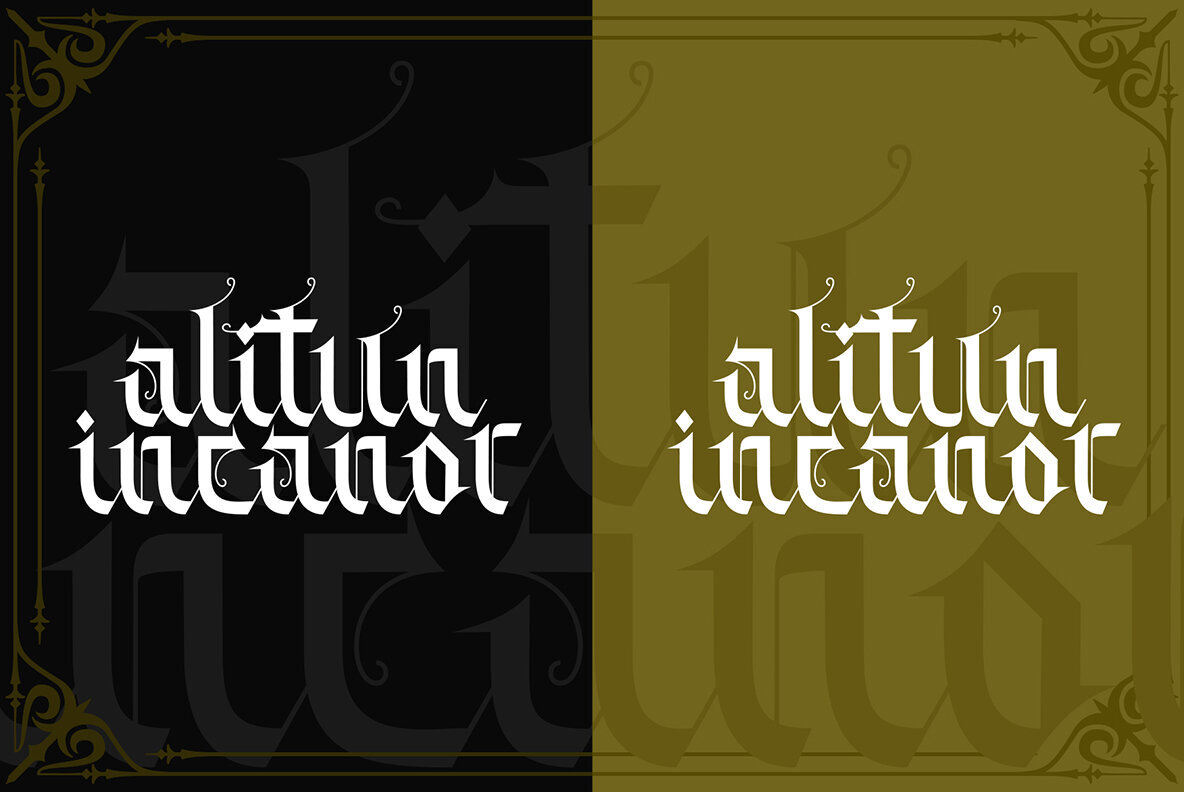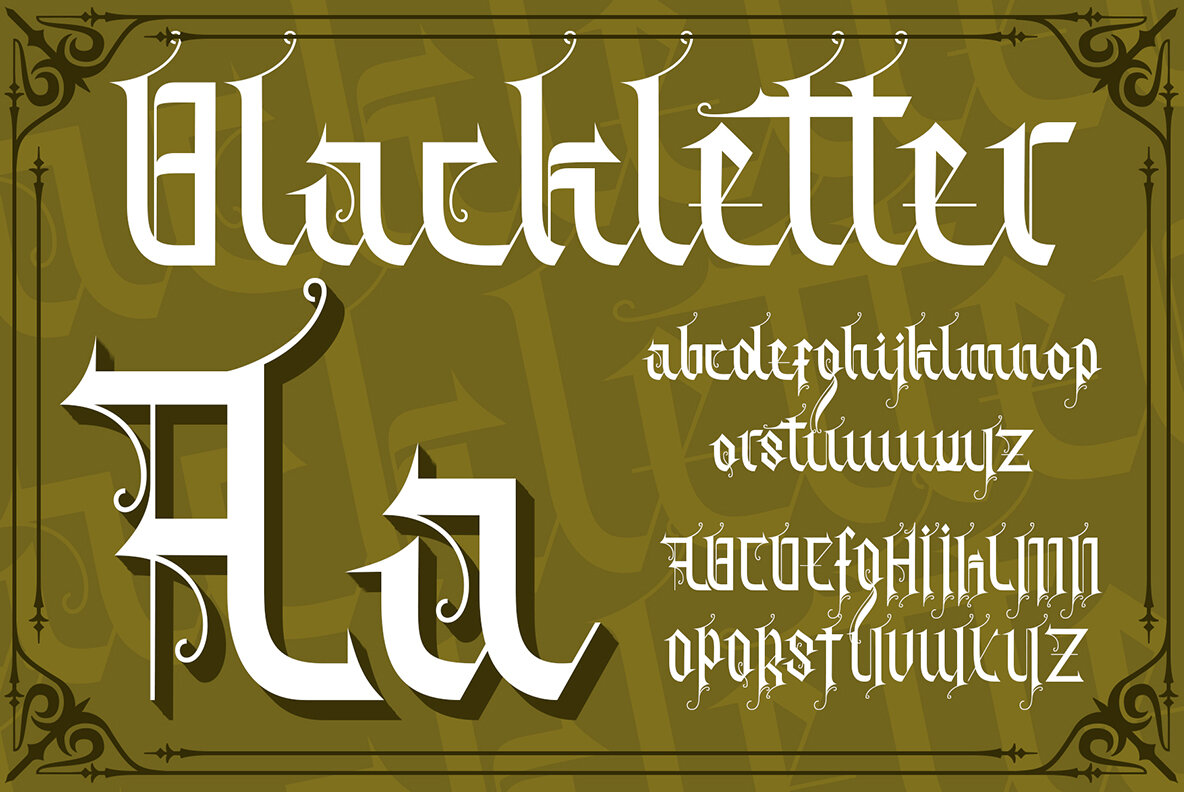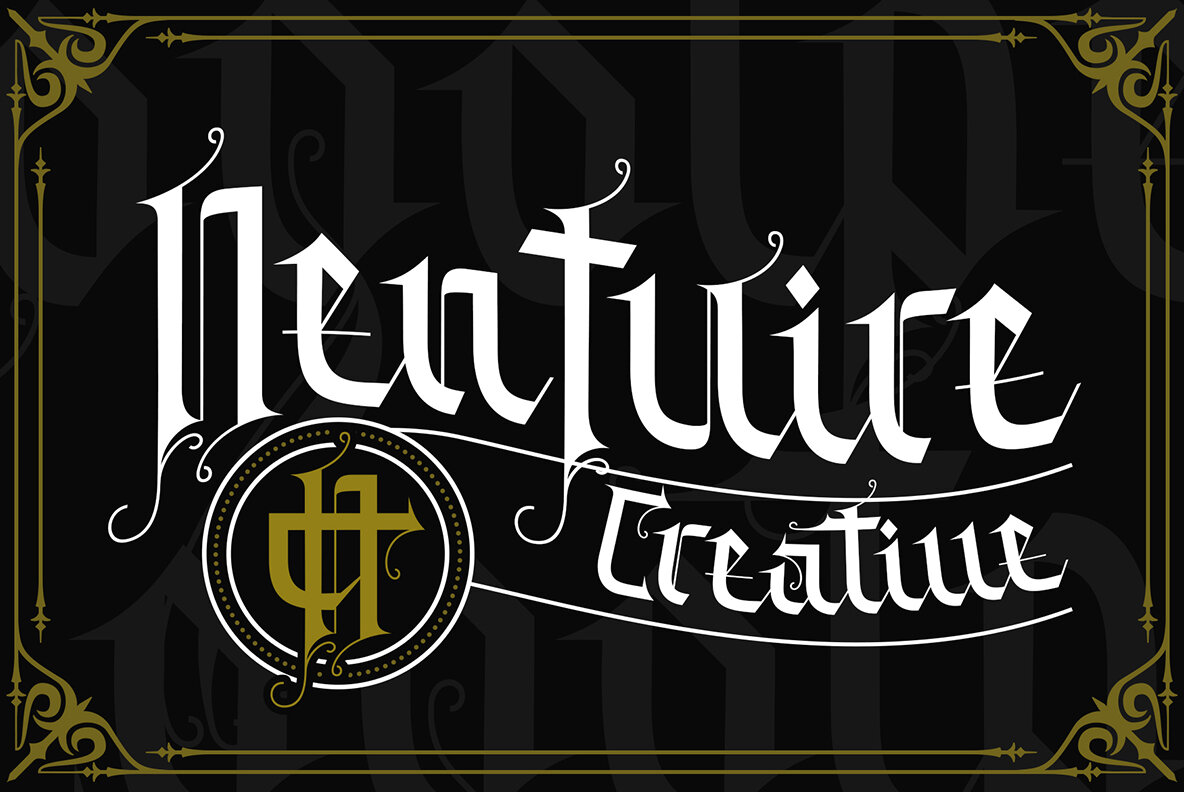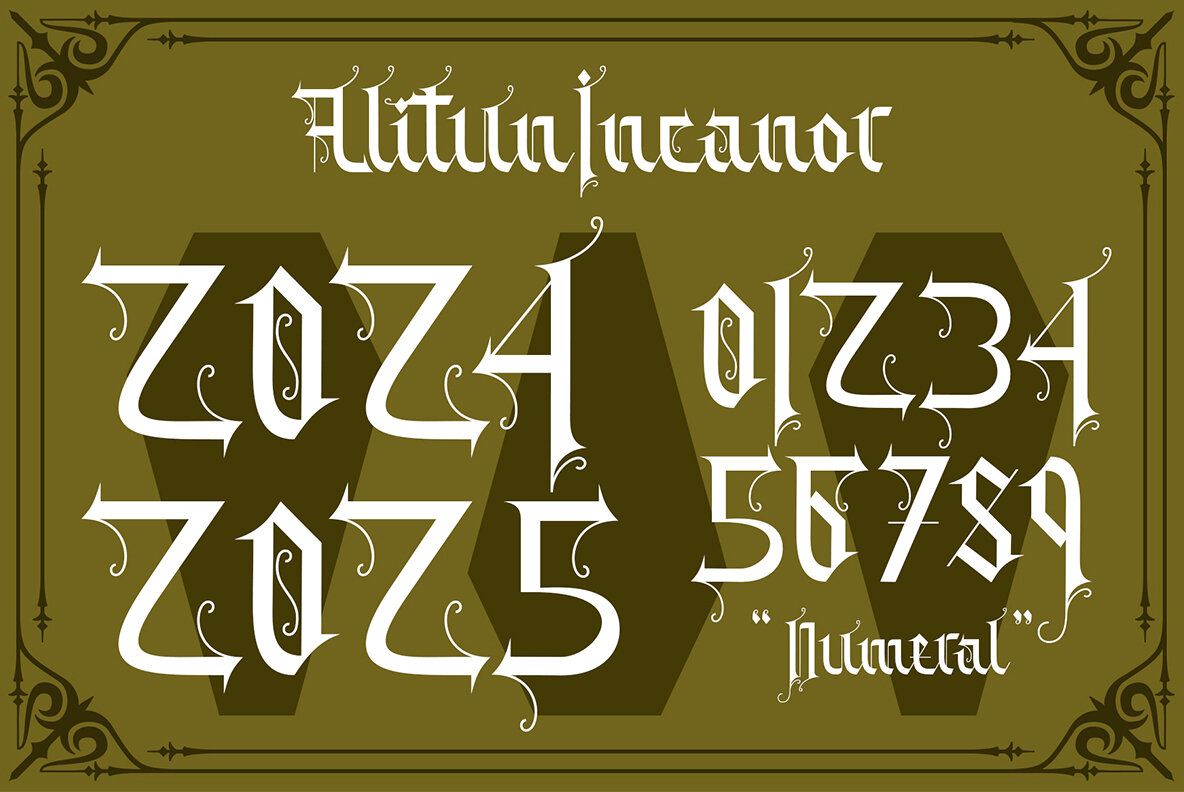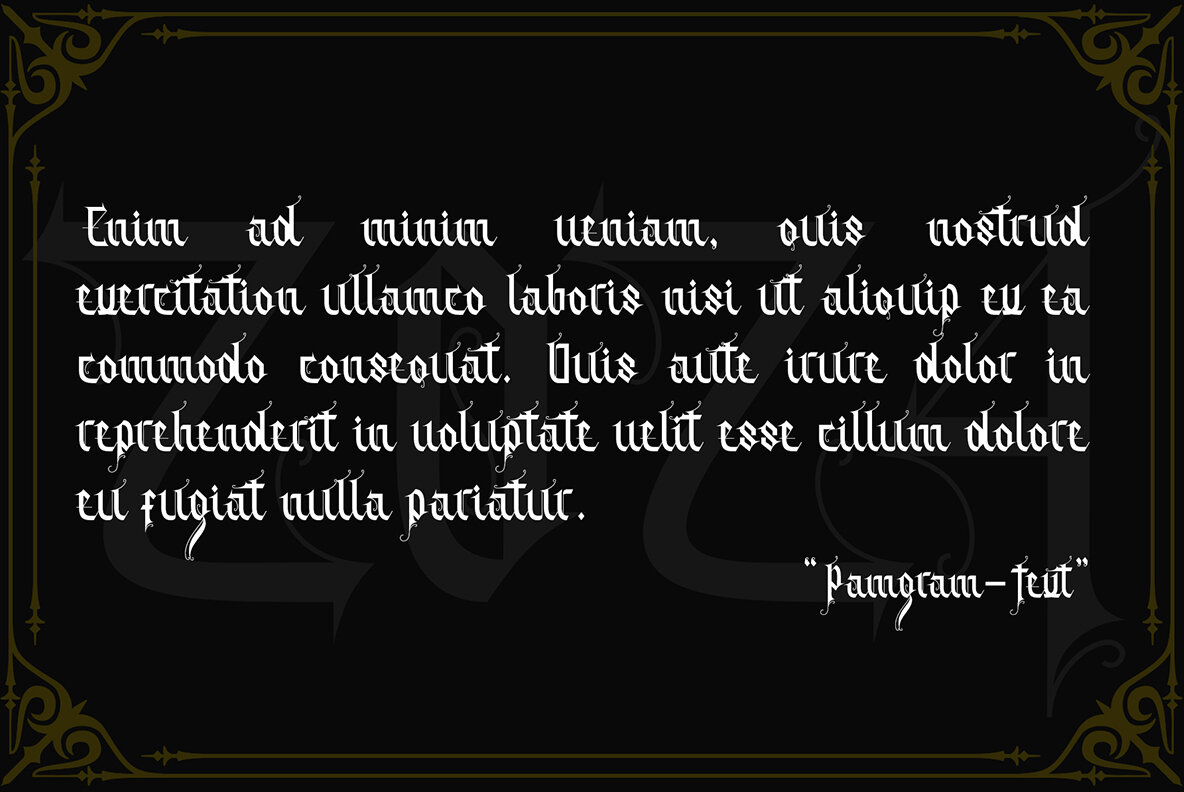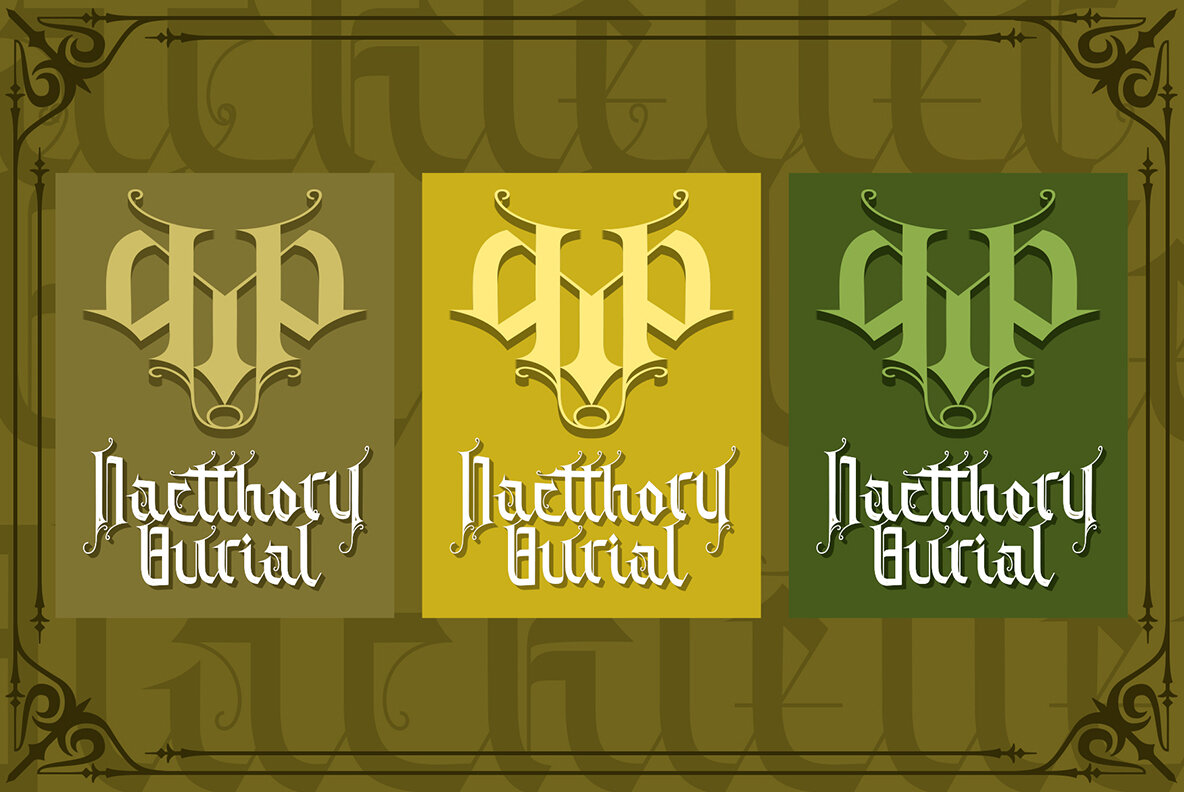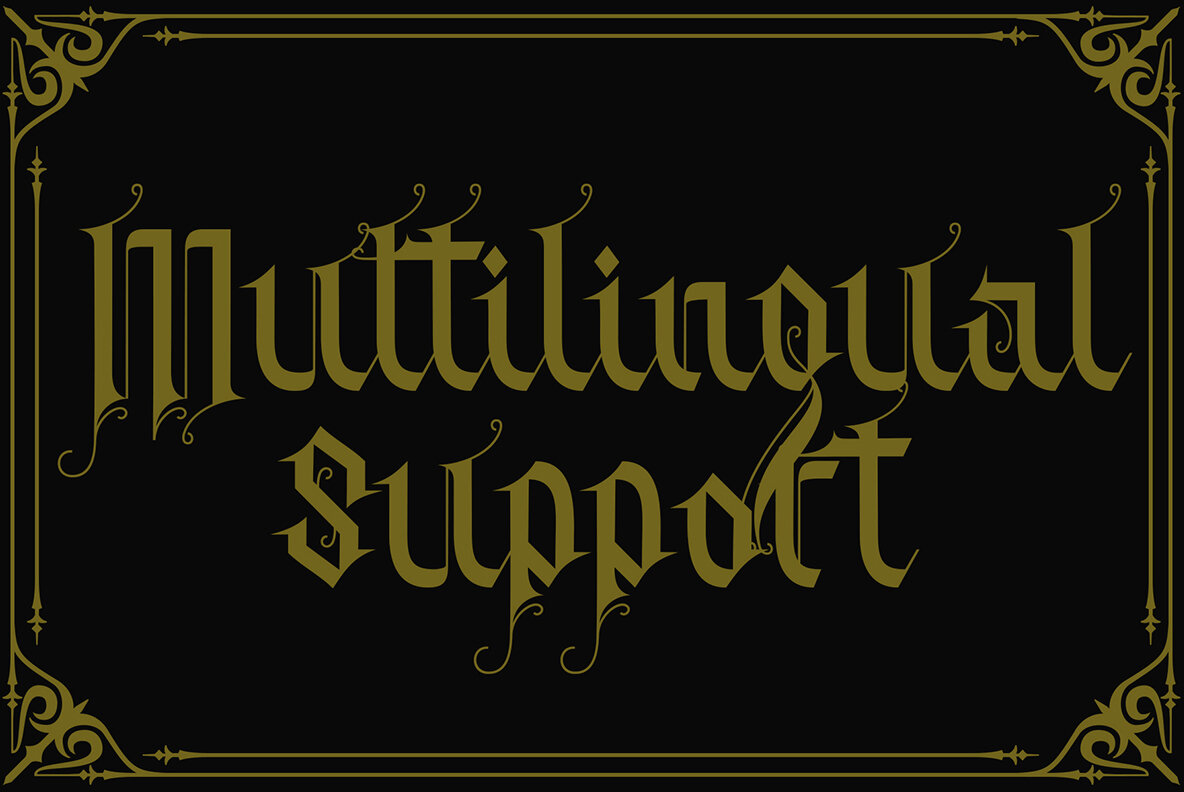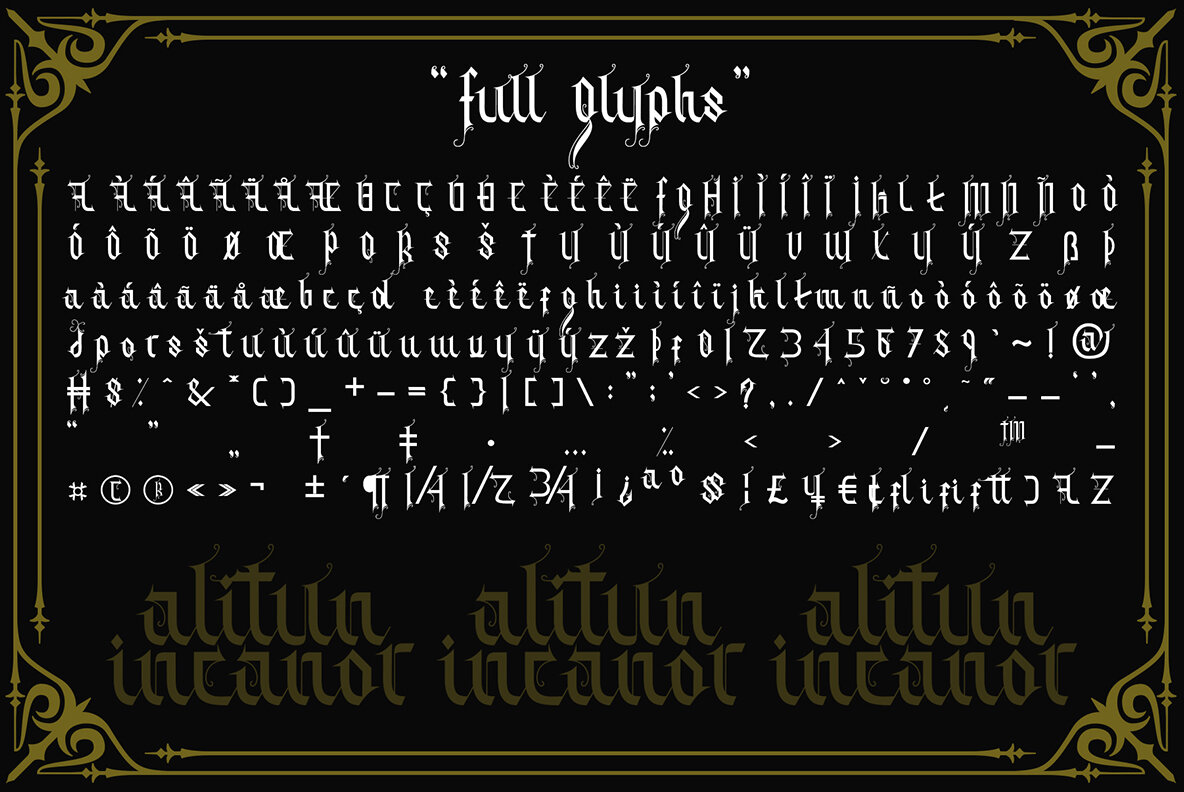
Alitun incanor Font
Alitun incanor
Alitun Incanor is inspired by Gothic style typography and calligraphy, offering a harmonious blend of old-world elegance with modern clarity. Its clean, sharp lines ensure readability, making it a versatile choice for diverse design projects. This font showcases natural calligraphic elements characteristic of Gothic synthesis and includes multilingual support. It is ideally suited for: With Alitun Incanor, you can create your own unique design, blending the charm of Gothic typography with modern sensibilities.Alitun Incanor: A Modern Gothic Typeface